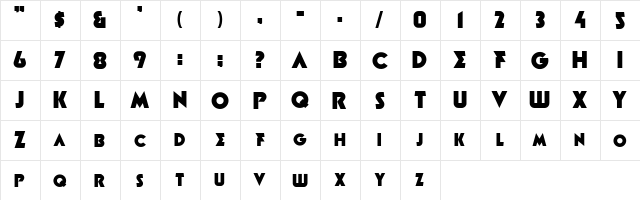
Minotaur Phatte
Design Context for Minotaur Typeface
Minotaur is a composed and adaptable typeface that performs quietly and consistently across a wide range of design contexts.